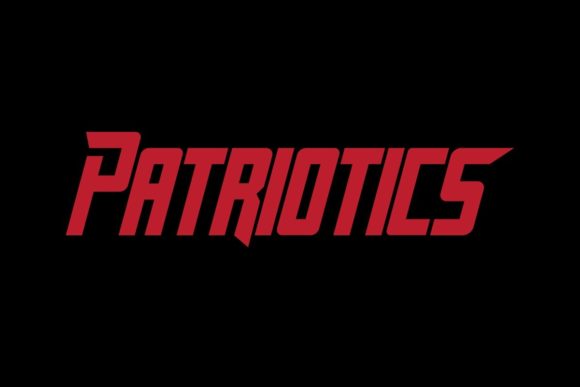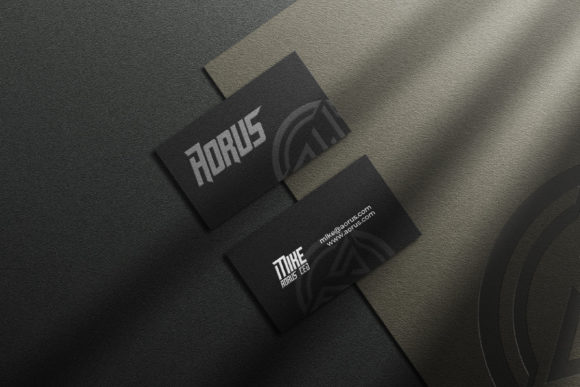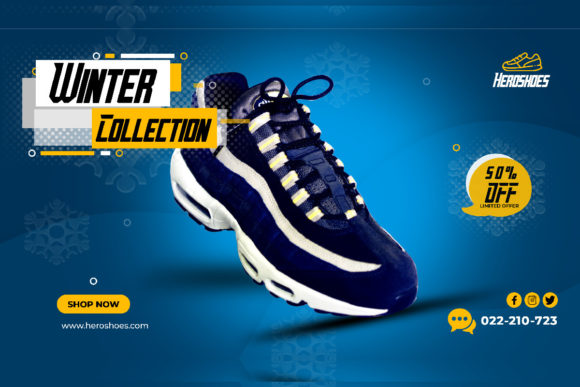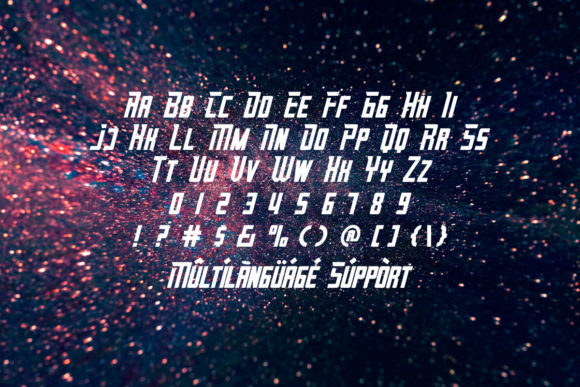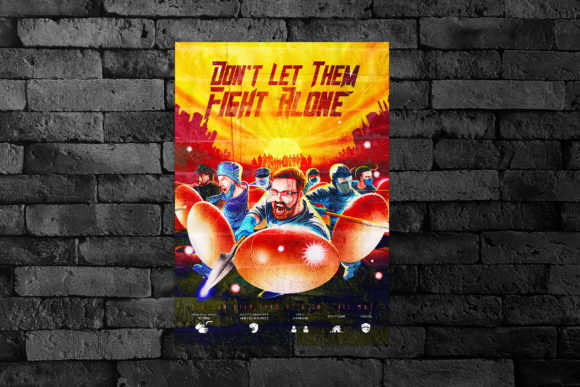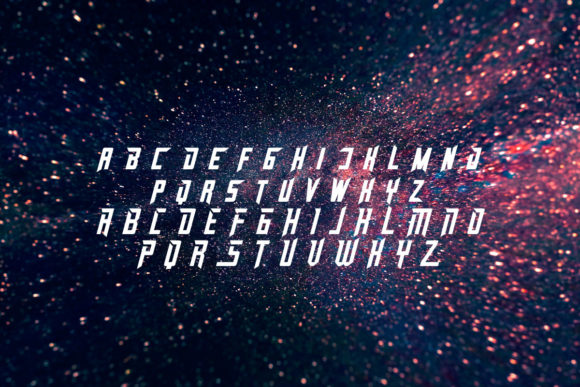
Introduction to Patriotics Font
Have you ever found yourself stuck on a creative project, unable to convey the energy and excitement you feel about your idea? You’ve got the concept, but the design just isn’t quite hitting the mark. This is where the perfect design resource can make all the difference. Enter the Patriotics Font, a bold and sporty display font that’s sure to elevate your creative vision to new heights.
With its cool and high-quality design, the Patriotics Font is the perfect addition to any design project. Whether you’re working on a logo, poster, or social media graphic, this font is sure to bring a level of sophistication and style that’s hard to match. Plus, with its transparent background and free download option, you can easily integrate it into your workflow without breaking the bank.
As a valuable resource for designers, the Patriotics Font is a game-changer. Its PUA encoded design makes it easy to access all of the glyphs and swashes, giving you complete control over your creative vision. Whether you’re a seasoned pro or just starting out, this font is sure to become a true favorite.
Patriotics Font
- High-quality font designed for creative projects, making it a valuable design resource.
- Features a transparent background, allowing for easy customization and integration into various designs.
- Includes a range of glyphs and characters, making it suitable for a variety of creative projects.
Honest Review: Patriotics Font
I recently came across the Patriotics Font, a design resource that caught my attention due to its unique and creative appeal. The high-quality design makes it an excellent choice for any project that requires a patriotic twist. As a designer, I appreciate the transparency in the font’s design, making it easy to work with.
- ✨ Unique and creative design that’s perfect for high-quality creative projects.
- ✨ Transparent background, allowing for easy editing and customization.
- ⚠️ Limited font styles and weights, which might be a drawback for designers who need more versatility.
Overall, I’m impressed with the Patriotics Font, and I can see it being a valuable addition to any designer’s toolkit. While it may have some limitations, its unique design and high-quality make it a worthwhile design resource to consider for the right project.
Tips for Getting the Most Out of Patriotics Font
Use Patriotics Font in a high-quality design project to add a unique touch. Experiment with different font sizes and colors to create a visually appealing design. You can also use Patriotics Font as a design resource for creating social media graphics, flyers, or posters.
Patriotics Font is ideal for creating patriotic-themed designs, such as Independence Day graphics, Memorial Day tributes, or Veterans Day celebrations. You can also use it to add a patriotic touch to your brand’s visual identity or marketing materials.